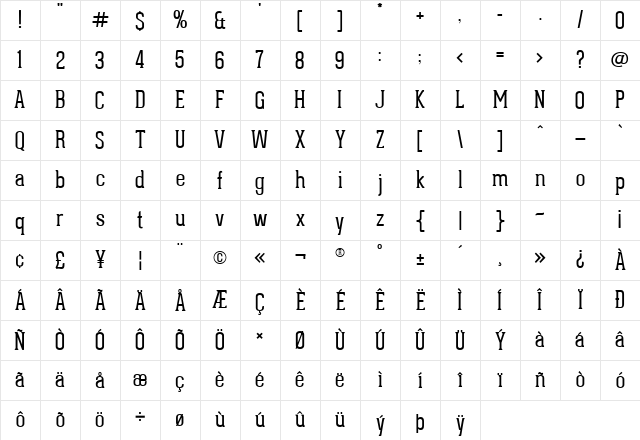
Geared Slab Thin
Foundry: Ben Dalrymple
Designer: Ben Dalrymple
Design Context for Geared Slab
Geared Slab features prominent, blocky serifs that give it a confident, grounded presence - equally at home in editorial settings and bold branding work. Its slender proportions lend an understated elegance to any composition.
Pro Tip: Use Geared Slab for headlines and subheadings where its slab serifs can make an impression. It also holds up well in mid-size body copy thanks to its sturdy construction.